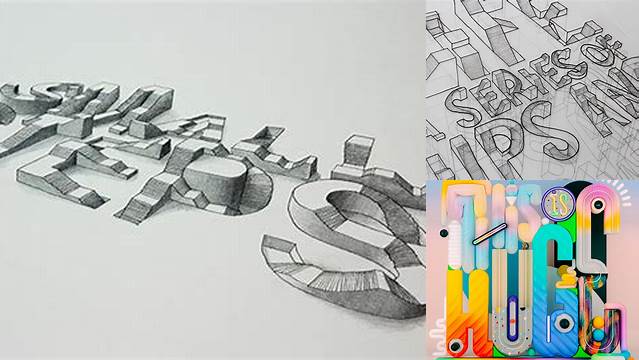
Www.1001fonts.com 3D: Your Ultimate Guide To Stunning 3D Typography
Welcome, font fanatics and design dynamos! Ever wanted to inject some serious depth and dimension into your typography? Well, you've stumbled upon the right place! Today, we're diving headfirst into the captivating world of 3D fonts, specifically exploring the treasure trove that is www.1001fonts.com 3D. Get ready to level up your design game, because we're about to unlock the secrets to creating visually striking and unforgettable 3D text effects.
Let's be real, 3D fonts aren't just a trend; they're a powerful tool. They can instantly grab attention, convey a sense of sophistication, and add a whole new layer of personality to your projects. Whether you're a seasoned graphic designer, a budding enthusiast, or just someone who loves cool fonts, this guide is for you. We'll explore everything from the basics of 3D typography to practical tips for using these fonts effectively. So, grab your favorite design software, and let's embark on this typographic adventure together!
Unveiling the Magic: What Makes www.1001fonts.com 3D Special?
Alright, guys, let's get down to brass tacks. What exactly makes www.1001fonts.com 3D a go-to resource for all things three-dimensional typography? The answer is simple: selection, quality, and user-friendliness. This website boasts a vast and diverse collection of 3D fonts, catering to a wide range of design styles and project needs. Whether you're after a futuristic sci-fi vibe, a classic, embossed look, or something quirky and playful, you're bound to find something that tickles your creative fancy. But it's not just about quantity; it's also about quality. The fonts available on www.1001fonts.com 3D are designed with precision and attention to detail, ensuring that they look fantastic in both print and digital formats. And the best part? The website is incredibly easy to navigate, making the font-hunting process a breeze. You can easily browse by category, style, or keyword, saving you valuable time and effort. Seriously, it's like a candy store for font lovers – you'll want to try them all! The website's user interface is clean and intuitive, ensuring a seamless browsing experience. You can preview fonts, download them with ease, and get started on your design projects right away. This ease of use makes www.1001fonts.com 3D an ideal resource for designers of all skill levels, from beginners to seasoned professionals. Furthermore, the site regularly updates its collection with new and exciting fonts, keeping your creative arsenal fresh and inspiring. You'll always find new options to experiment with, keeping your designs cutting-edge and captivating. With such a diverse and well-curated selection, you're sure to find the perfect 3D font to elevate your projects and make them stand out from the crowd. The website also provides useful information about each font, such as licensing details and design recommendations. This helps ensure that you can use the fonts responsibly and effectively in your work. In addition, the website’s search functionality is highly effective. You can search by keyword, style, and even the designer, allowing you to quickly locate the perfect 3D font for your needs. In essence, www.1001fonts.com 3D offers a comprehensive and user-friendly platform for discovering and downloading high-quality 3D fonts that will take your designs to the next level. This is why it’s a must-visit for any designer seeking to inject depth and dimension into their typographic creations.
Exploring the Fontiverse: Categories and Styles on www.1001fonts.com 3D
Alright, let's delve a little deeper, shall we? One of the things that makes www.1001fonts.com 3D so awesome is the sheer variety of fonts available. They've got a font for practically every conceivable design style! Let's take a quick tour of some of the categories and styles you can expect to find. First up, we have the classic 3D fonts, which are designed to give your text a realistic three-dimensional appearance. These fonts often feature shadows, highlights, and bevel effects, making your text pop off the page. Then there are the embossed fonts, which create the illusion that your text is raised or pressed into the surface. These are great for creating a sense of elegance and sophistication. Looking for something more futuristic? Sci-fi 3D fonts are your go-to option. These fonts often feature sleek lines, bold shapes, and futuristic elements, perfect for projects that require a cutting-edge look. For a more playful and cartoonish vibe, you'll find a fantastic selection of bubble fonts and blocky fonts. These fonts are often thick and rounded, making them ideal for children's books, posters, and other fun projects. Shadowed fonts are another popular category, adding depth and dimension to your text with simple yet effective shadow effects. And if you are aiming for a vintage or retro look, you can find fonts with a weathered or distressed appearance, adding character and personality to your designs. Furthermore, www.1001fonts.com 3D often includes fonts with special effects. You may stumble upon fonts that create the illusion of neon lights, metallic surfaces, or even glowing text. With such a diverse range of styles, you can find a font that fits any design brief. The site also allows you to preview fonts in different sizes and colors, helping you visualize how they will look in your projects. This helps to ensure that you select the perfect font for your intended purpose. The website makes it easy to find the perfect font for any occasion, whether you're designing a logo, a website, a poster, or even a social media graphic. From classic designs to modern trends, www.1001fonts.com 3D has you covered. The diverse selection of fonts ensures that you can always find a font that meets your creative vision.
Diving into 3D Lettering: Techniques and Tutorials for Beginners
So, you've found some awesome 3D fonts on www.1001fonts.com 3D, and now you're itching to create some amazing designs. But where do you start? Don't worry, we've got you covered! Let's break down some easy techniques and tutorials for beginners. Firstly, mastering basic design software is essential. Programs such as Adobe Photoshop, Illustrator, and GIMP are commonly used for creating 3D text. You'll need to familiarize yourself with the interface and understand the basic tools, such as the text tool, layer styles, and 3D effects. Starting with simple designs can help you gain confidence. Begin by creating a basic text layer, selecting your chosen font from www.1001fonts.com 3D. Then, experiment with different colors, sizes, and positioning. Using layer styles, such as drop shadows, bevels, and glows, is a great way to create a 3D effect. These effects add depth and dimension to your text, making it appear more realistic. For example, a subtle drop shadow will make the text appear to pop off the page. Bevels, on the other hand, can create the illusion of raised or engraved text. Remember, less is often more. Avoid overdoing the effects, as this can make your text look cluttered. Start with subtle adjustments and gradually increase the intensity of the effects as needed. Explore different lighting options to further enhance the 3D effect. Adjusting the light source can change the way shadows and highlights fall on the text, adding to the realism. Furthermore, there are numerous tutorials available online that can guide you through the process of creating 3D text. Websites like YouTube, Skillshare, and Udemy offer step-by-step instructions for various software. When working with 3D text, experimenting with different perspectives and angles can significantly change the visual appeal of your design. Rotate and position your text to create dynamic and engaging compositions. By following these techniques and tutorials, you can transform simple text into eye-catching 3D masterpieces. Practice is key! Experiment with different fonts, effects, and settings to develop your own unique style.
Choosing the Right 3D Font for Your Project on www.1001fonts.com 3D
Selecting the perfect 3D font is crucial for the success of your design project. With a vast collection available on www.1001fonts.com 3D, it’s important to know how to choose wisely. Start by identifying your project's purpose and target audience. Are you designing a logo for a tech company, a poster for a children's event, or a headline for a fashion blog? The answer will help determine the appropriate style and personality of your font. Then, consider the overall aesthetic of your design. Do you want a sleek and modern look, a playful and quirky vibe, or something more elegant and sophisticated? The font you choose should complement the other design elements, such as colors, images, and layout. Remember that readability is paramount. The font should be easily readable, especially for longer text. Choose a font with clear letterforms and a comfortable size, ensuring your audience can easily understand the message. Experiment with different font styles and variations to find the best fit for your project. www.1001fonts.com 3D allows you to preview fonts in different sizes, colors, and contexts, helping you visualize how they will look in your final design. In addition to the style and readability, you should also consider the font’s character set and special features. Ensure that the font supports the necessary characters, such as numbers, punctuation, and special symbols. Some fonts come with unique features, such as ligatures or alternate glyphs, which can add to the visual appeal. Remember to check the licensing terms for the font. Ensure that you are allowed to use the font for your intended purpose, whether it’s personal use, commercial use, or both. Finally, don't be afraid to test different fonts and combinations. Create mockups and experiment with various designs to see which font works best. With these tips, you will be able to confidently select the perfect 3D font from www.1001fonts.com 3D to create a visually stunning and impactful design.
Mastering Shadows and Depth: Creating Realistic 3D Effects with www.1001fonts.com 3D
Alright, let's dive into the nitty-gritty of creating realistic 3D effects using the amazing resources available at www.1001fonts.com 3D. One of the fundamental principles of 3D design is the use of shadows and depth to create the illusion of three dimensions. Mastering these techniques can significantly enhance the realism and visual appeal of your 3D text. Firstly, understanding the relationship between light and shadow is essential. The direction of the light source dictates where the shadows will fall. The intensity of the light affects the depth of the shadows. This, in turn, impacts how three-dimensional the text appears. In your design software, experiment with different shadow settings. Adjust the angle, distance, and blur of the shadows to achieve the desired effect. A subtle shadow can make the text appear to pop off the page, while a deeper shadow can create a more dramatic look. The use of gradients and highlights is another important element. By adding gradients to your text, you can create the illusion of a curved or beveled surface. Highlights, on the other hand, reflect the light source, adding a sense of depth and realism. When designing with www.1001fonts.com 3D resources, consider the font's inherent design. Some fonts have pre-designed shadows or bevels, making it easier to create a 3D effect. Others may require you to add these elements manually. Experiment with different color combinations to enhance the 3D effect. Darker colors tend to recede, while lighter colors appear to advance. Use gradients and highlights to create a sense of volume and dimension. Another technique to master is the layering of text. Creating multiple layers of the same text, slightly offset and with different shadow and highlight settings, can produce an amazing 3D effect. Using these techniques, your designs will stand out. By combining the right shadows, depth, and colors, you can breathe life into your 3D fonts and create stunning, realistic text effects.
3D Font Design Software: Best Tools to Use with www.1001fonts.com 3D
So, you've got your killer 3D fonts downloaded from www.1001fonts.com 3D, but now what? You need the right software to bring those fonts to life! Fortunately, there's a wealth of design software available, each with its own strengths and weaknesses. Let's take a look at some of the best tools to use. For those looking for industry-standard power, Adobe Photoshop and Illustrator are your go-to options. Both programs offer robust 3D text capabilities, allowing you to create stunning effects with precision and control. Photoshop is particularly well-suited for creating raster-based 3D effects. Its layer styles, filters, and 3D extrusion tools make it easy to add shadows, bevels, and other effects. Illustrator, on the other hand, excels at creating vector-based 3D graphics. This means your designs will remain sharp and scalable, regardless of the size. Another popular option is GIMP, a free and open-source image editor. GIMP is a great alternative to Photoshop, offering many of the same features but without the subscription cost. It's ideal for designers on a budget or those who prefer open-source software. Another option to consider is Blender, a powerful 3D creation suite. Blender is not just for text; it is also great for 3D modeling, animation, and more. For web designers or those seeking a more streamlined workflow, consider using online tools like Canva or Vectr. These platforms offer user-friendly interfaces and pre-designed templates that make it easy to create eye-catching 3D text. When selecting software, consider your level of experience. If you're a beginner, start with a user-friendly program like Canva. As you gain experience, you can move on to more advanced tools. If you're looking to create animated 3D text, consider using dedicated animation software like Adobe After Effects or Cinema 4D. These programs offer advanced features for creating complex motion graphics. Remember to familiarize yourself with the software's features. The right tools, paired with the stunning fonts you find on www.1001fonts.com 3D, will help you create memorable designs.
Getting Started with www.1001fonts.com 3D: A Step-by-Step Guide
Ready to dive in and start creating? Here's a step-by-step guide to getting started with www.1001fonts.com 3D. First, navigate to the website: Simply type www.1001fonts.com into your web browser. Then, browse and search for fonts: Use the search bar or browse through the categories and styles to find the perfect 3D fonts for your project. Preview the fonts: Click on the font to view more details, including a preview of how the font will look in different sizes and styles. This will allow you to ensure that the font suits your purpose. Download the fonts: Click on the download button to download the font files. You may be required to complete a brief registration or verification process before being able to download. Install the fonts: Once downloaded, install the fonts on your computer. In Windows, you can right-click on the font files and select